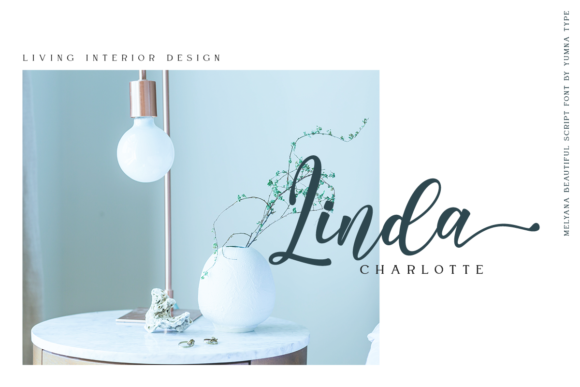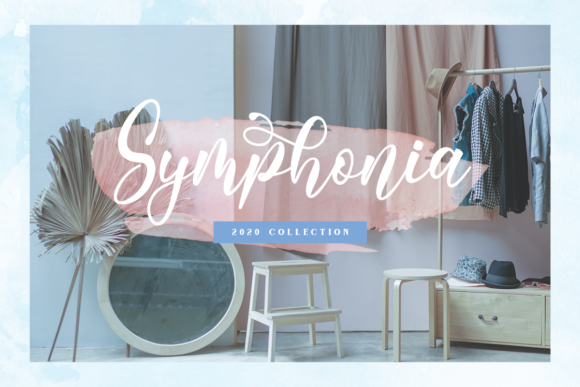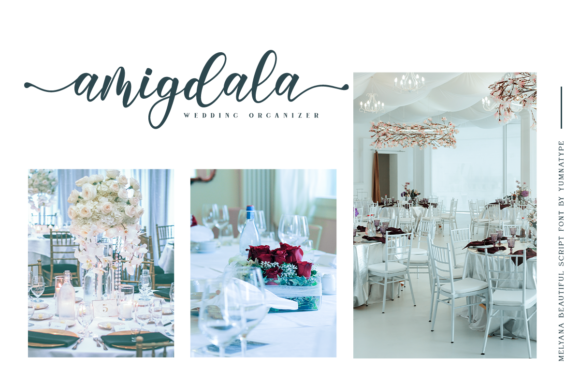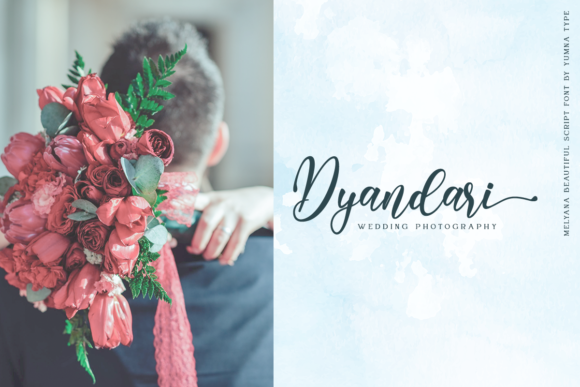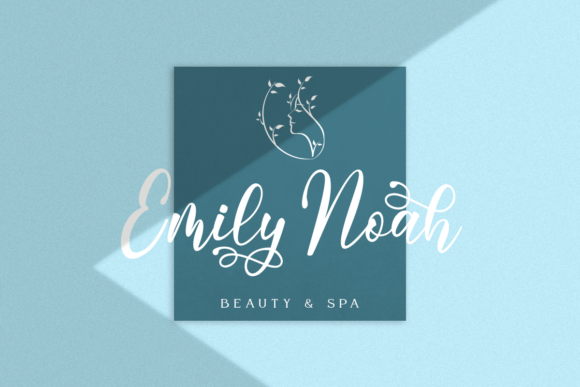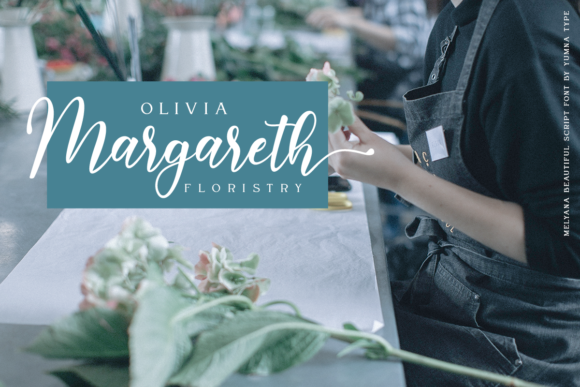
Introduction to Melyana Font Font
Fonts play a crucial role in design, and the Melyana Font font is a typeface that brings both character and versatility to any project. Whether you’re working on a branding project, a website, or a print design, the Melyana Font font offers a unique style that can elevate your work.
| 👤 Author | Yumna_Type |
Melyana is a beautiful and modern, soft hand-lettered script.
It will elevate a wide range of design projects to the highest level, be it branding, headings, wedding designs, invitations, signatures, logos, labels, and much more .
Key Features of Melyana Font Font
Why Choose Melyana Font Font?
The Melyana Font font is more than just a typeface – it’s a design tool that helps you communicate your message with style and clarity. Its unique character set and versatile design make it suitable for a wide range of applications, from elegant invitations to bold headlines.
With its carefully crafted letterforms and balanced proportions, the Melyana Font font ensures readability and visual appeal across all mediums.
What makes Melyana Font font special?
The Melyana Font font stands out with its unique design, exceptional readability, and versatility across various design applications.